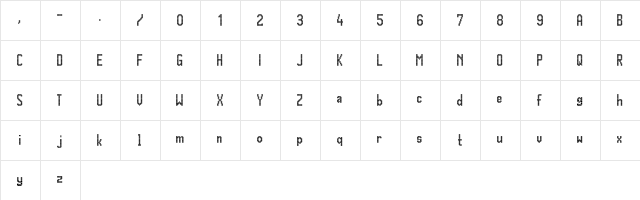
Trapwagen Groot Regular
| Designer | Jeffrey Visser |
Design Context for Trapwagen Groot Typeface
Trapwagen Groot takes a measured approach to typography — its balanced proportions and neutral character make it a reliable workhorse for both digital and print work.